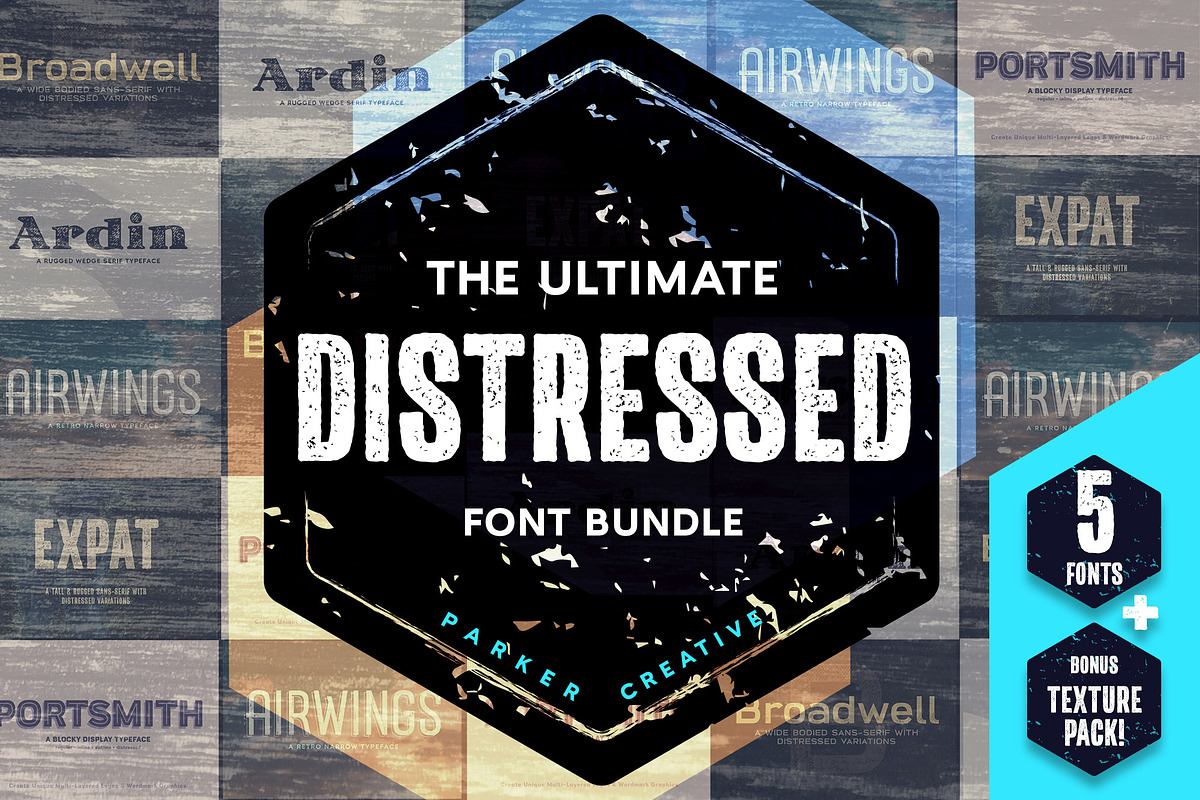
The Ultimate Distressed Font Bundle Free Download is an expansive collection of gritty, worn-out typefaces designed to add a raw, vintage, and weathered touch to your projects. With a range of distressed styles—from grunge to retro and industrial designs—this bundle is perfect for creating edgy branding, distressed posters, rock album covers, clothing logos, and any design that requires a bold, rugged aesthetic.
Each font in the bundle features textured details, worn edges, and imperfect forms that give your typography an authentic, timeworn look. Whether you're working on a creative project, branding for a streetwear line, or designing for a DIY label, The Ultimate Distressed Font Bundle provides all the options you need to make a statement.